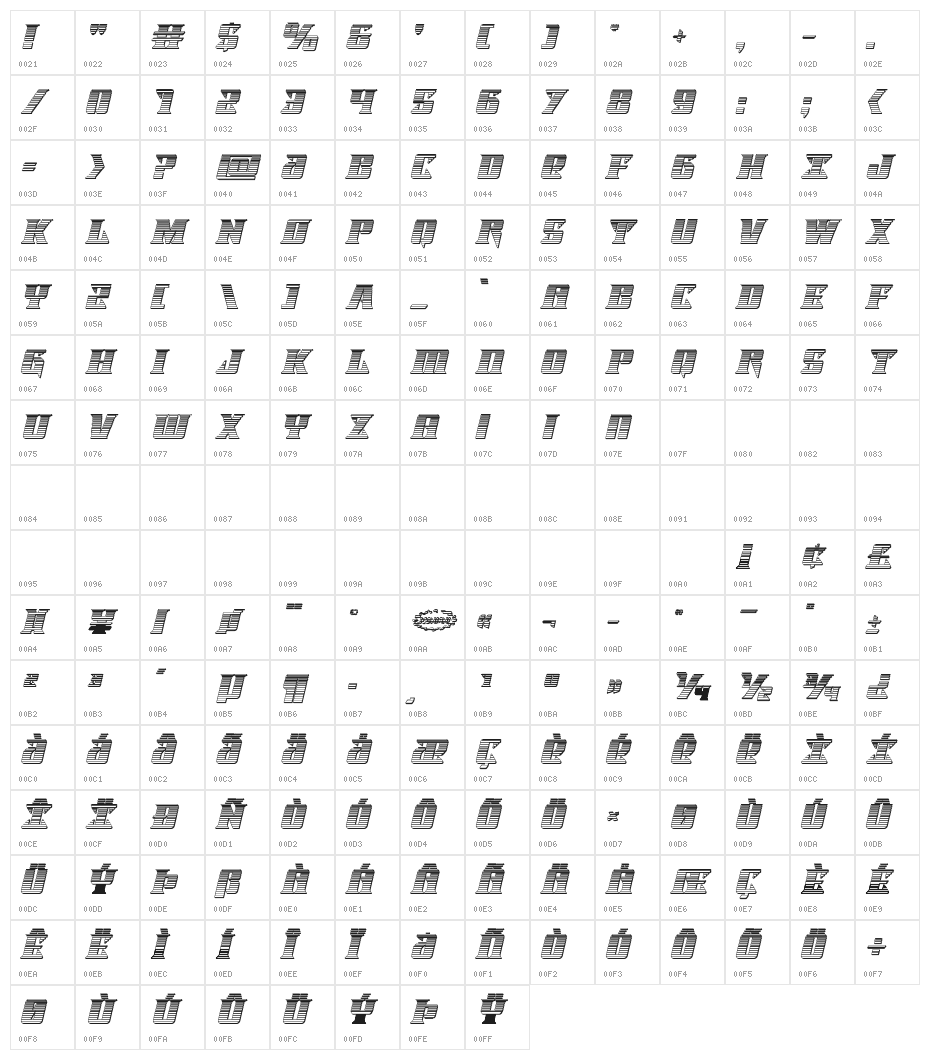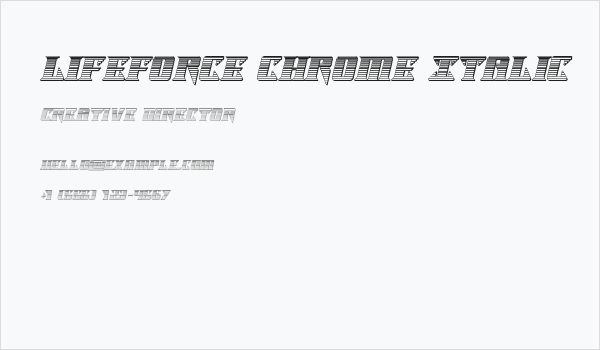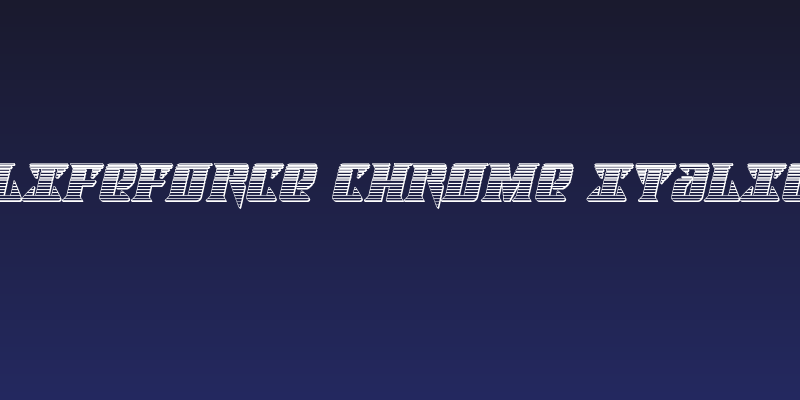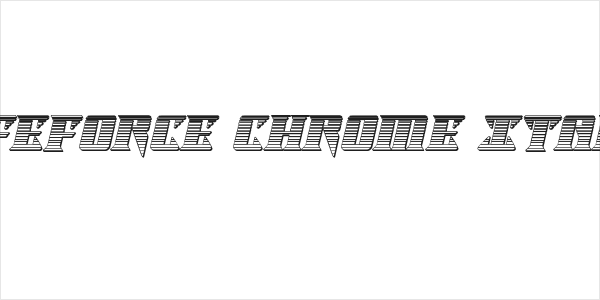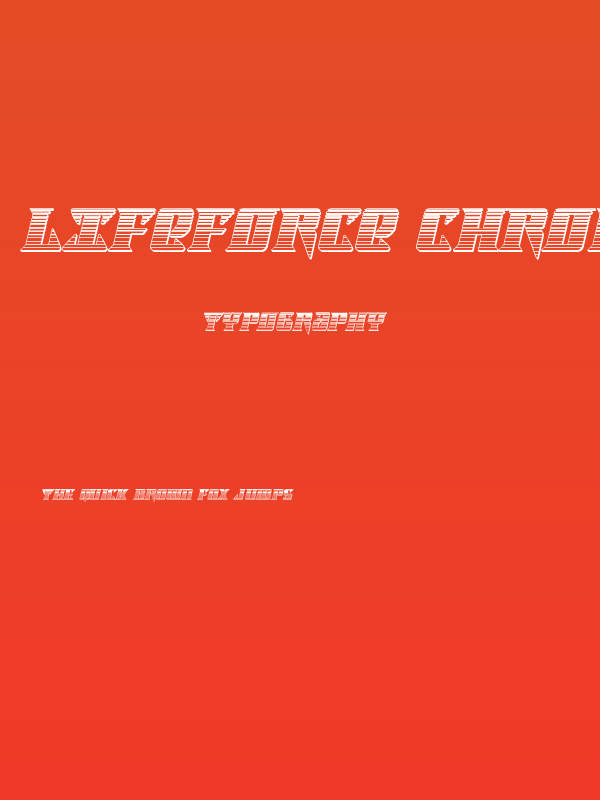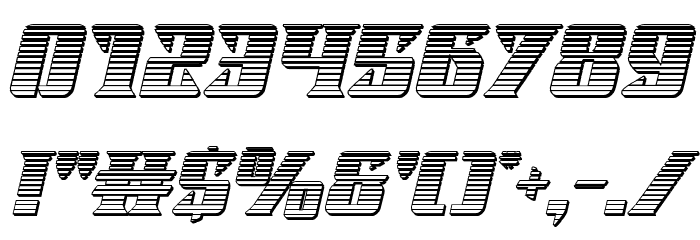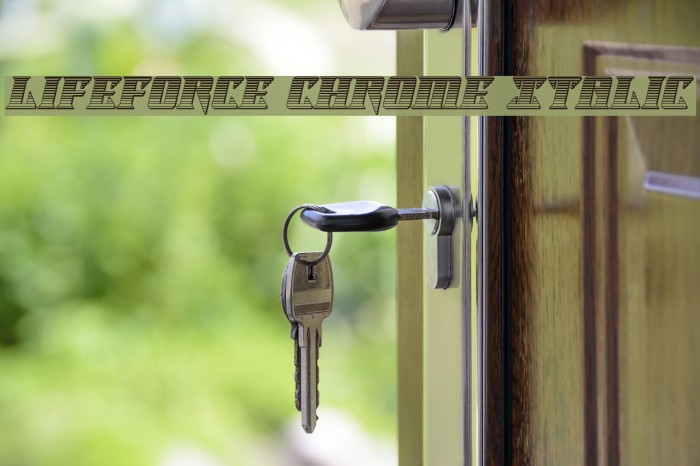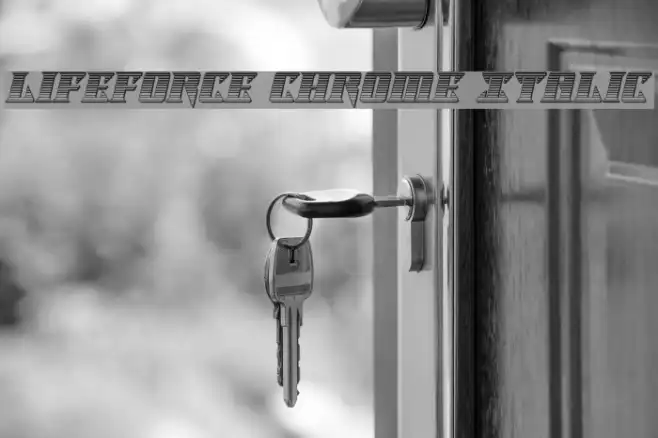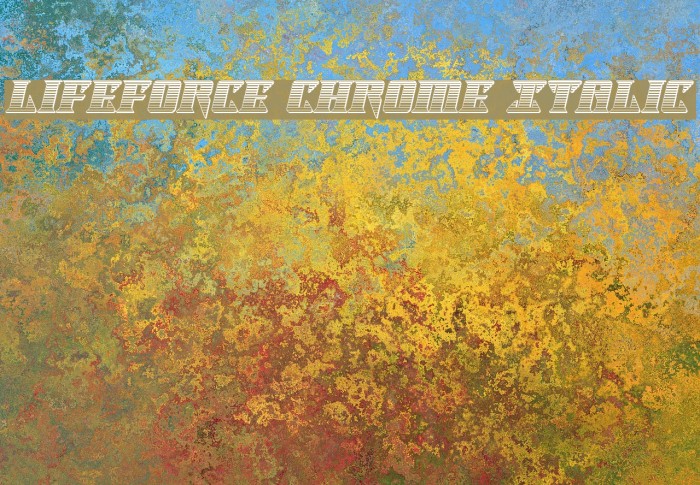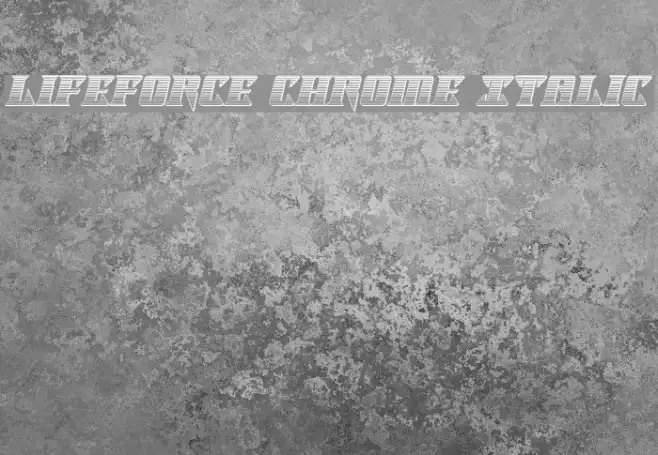
Lifeforce Chrome Italic Font
Lifeforce Chrome Italic Description
This font features a bold, dynamic design with a distinct chrome-like appearance. The letters are italicized, giving them a forward-leaning stance that suggests movement and energy. Each character is composed of multiple horizontal lines, creating a striped effect that enhances its futuristic and industrial feel. The uppercase and lowercase letters maintain a consistent style, with sharp angles and geometric shapes. The numerals and special characters follow the same design principles, ensuring a cohesive look across all elements. This font is ideal for projects that require a modern, edgy aesthetic.
| Overall Style | Futuristic, Industrial |
| Proposed Projects | Ideal for sci-fi themed posters, video game titles, tech branding, and futuristic event invitations. |